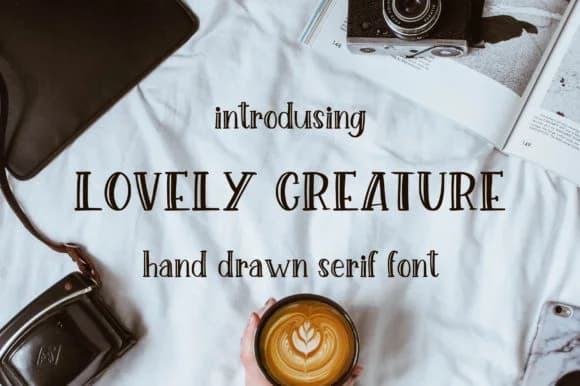
1 / 4About Lovely Creature Font
The letterforms here lean into playful imperfection, with wobbly strokes and quirky character variations that feel genuinely hand-drawn rather than mechanically constructed. Lovely Creature, designed by Sentimental Postman, is a bold handwritten face that thrives on personality over polish. The loose baseline and irregular terminals give it an off-kilter charm that works especially well when a design needs to break the rules a bit.
This typeface finds its rhythm in indie book covers, greeting card suites, quirky sticker label sets, and artisanal packaging for small boutique brands. It has the kind of confidence that doesn't ask permission, making it equally suited to DIY craft projects and podcast episode artwork. The weight carries enough presence to work at display sizes without becoming overwhelming, and the slightly chaotic rhythm stays readable even when running it across multiple applications or collateral pieces.
Best suited for designers and creative entrepreneurs who embrace unconventional character, Lovely Creature brings a refreshing alternative to the polished script libraries that fill most design tool collections. It's the typeface you reach for when a design needs to feel genuinely alive, when personality and boldness matter more than perfect polish. Find it on Creative Fabrica to add it to your collection.
Lovely Creature Font is a script font that shines as a display or heading face. Pair it with a clean sans-serif or serif font for body text β the contrast creates a clear hierarchy while the two styles stay balanced and easy to read.